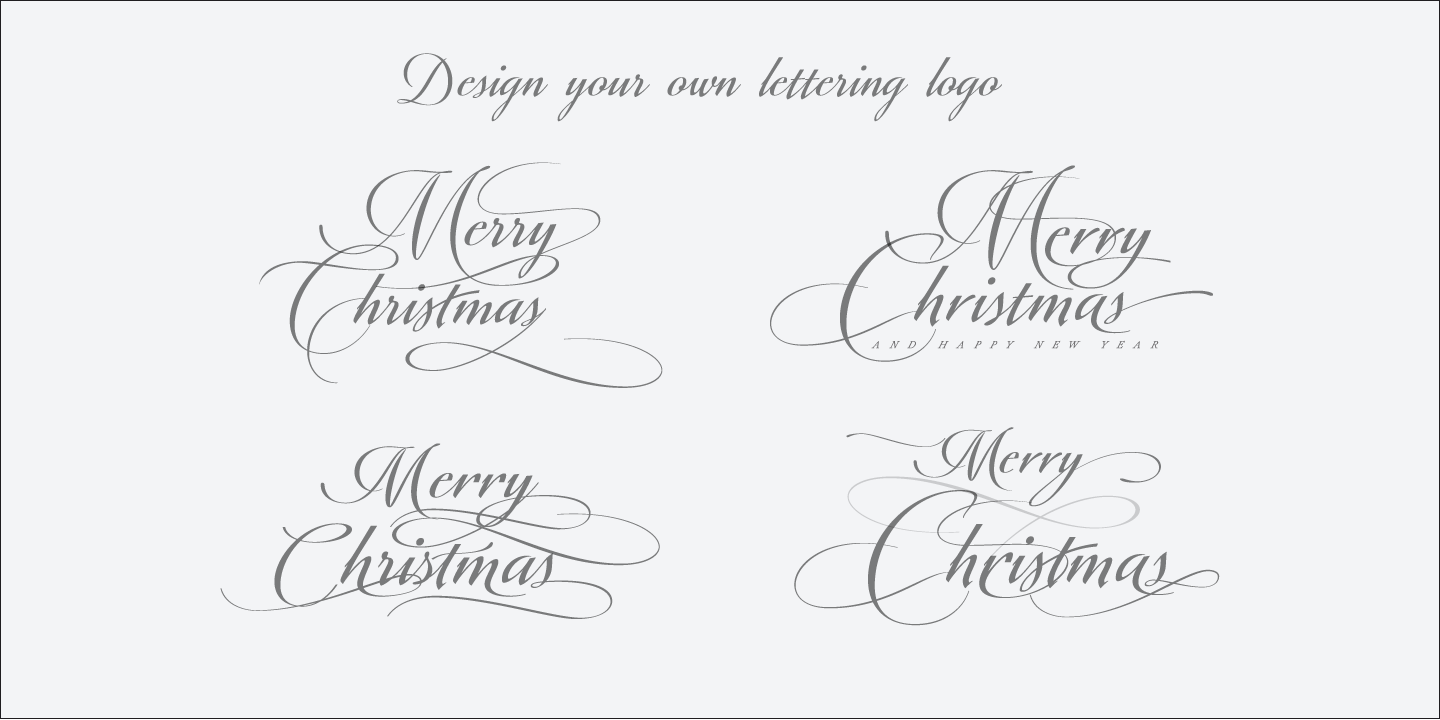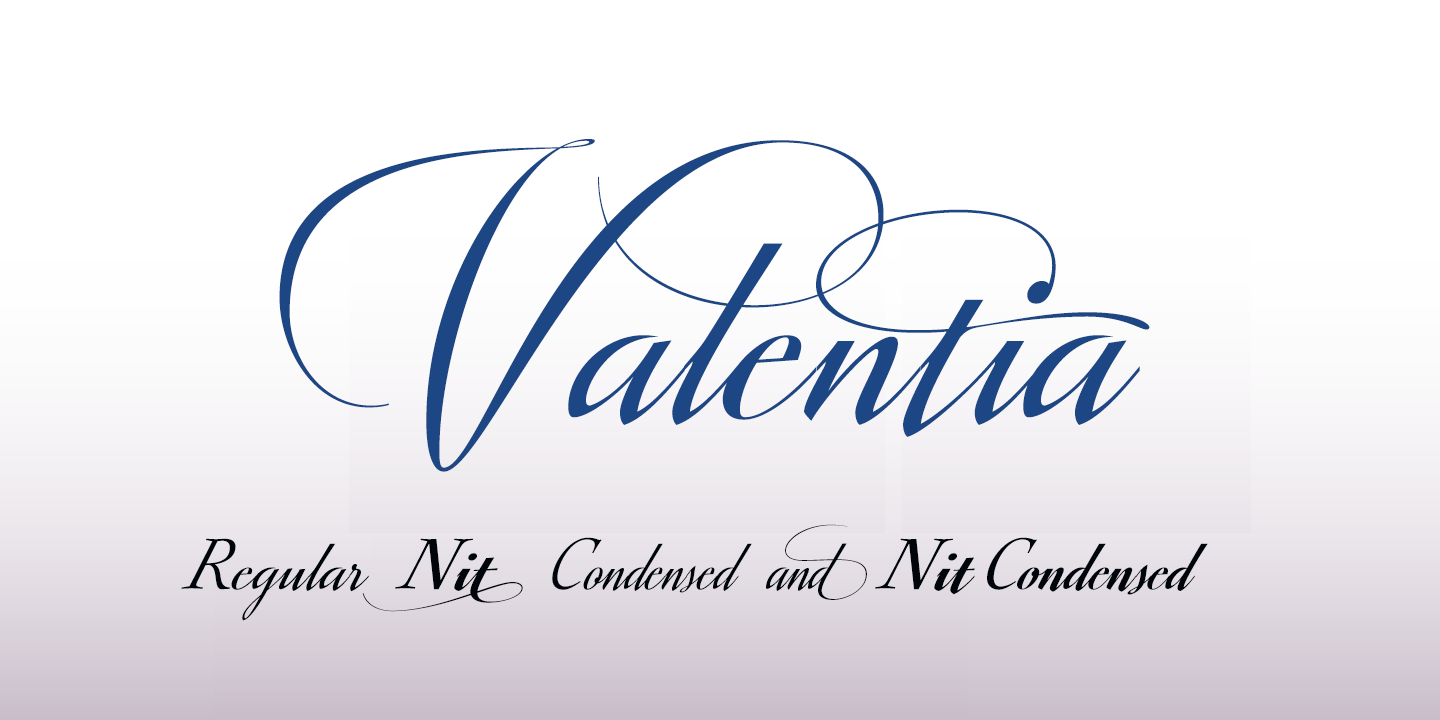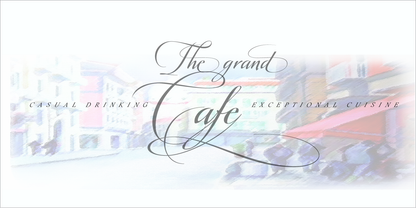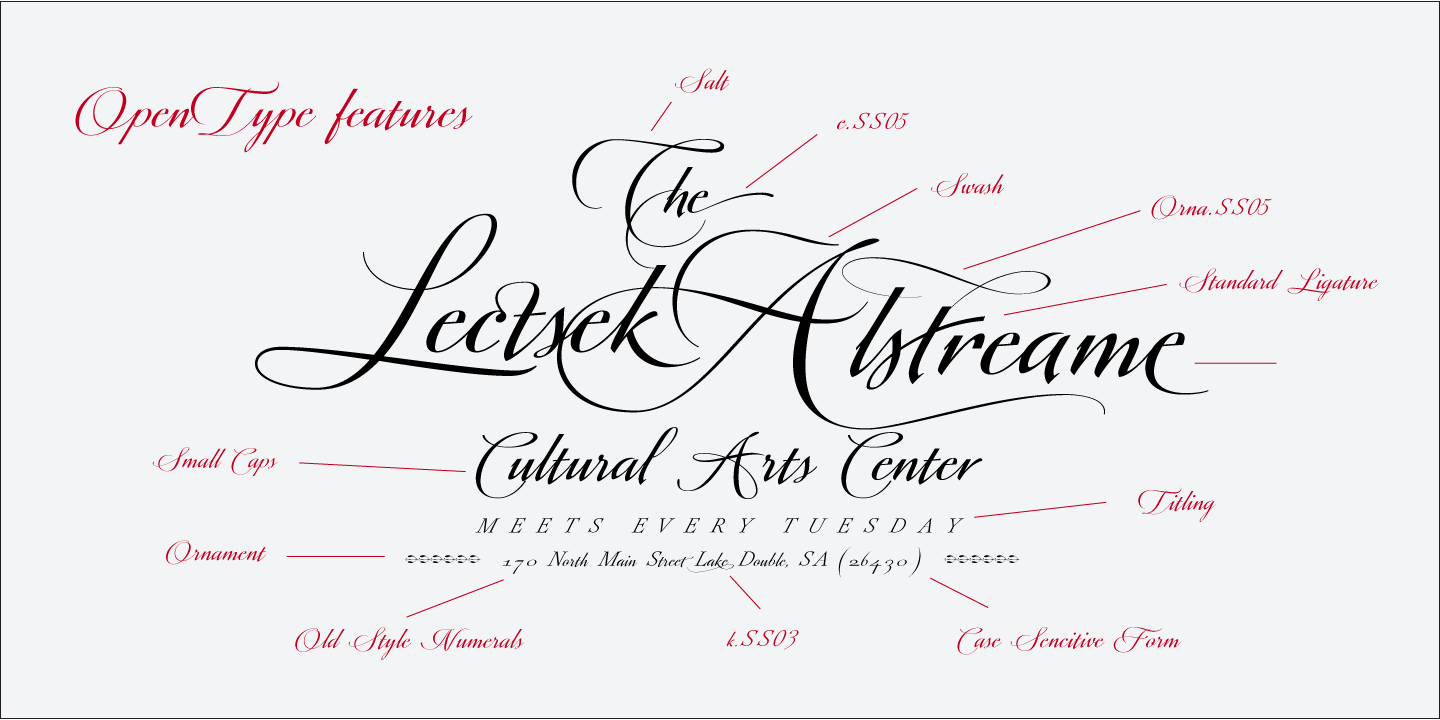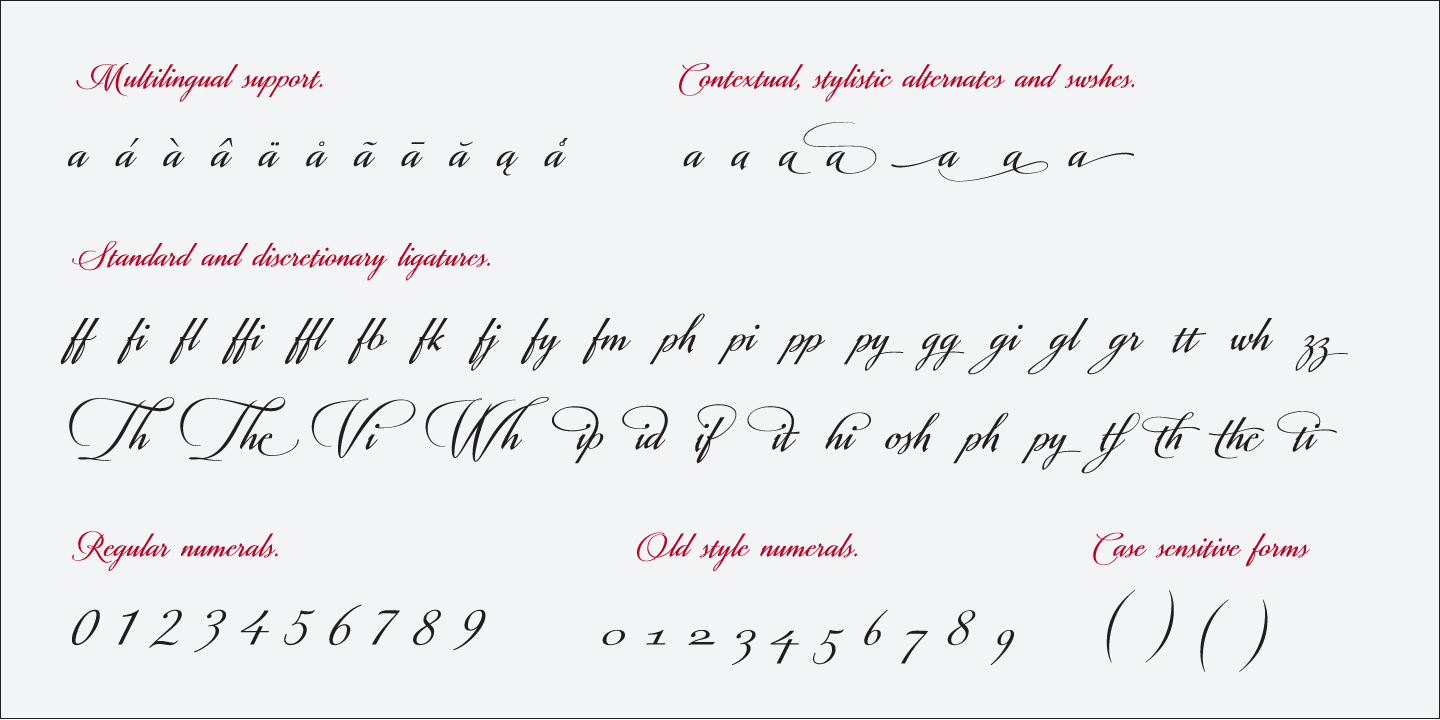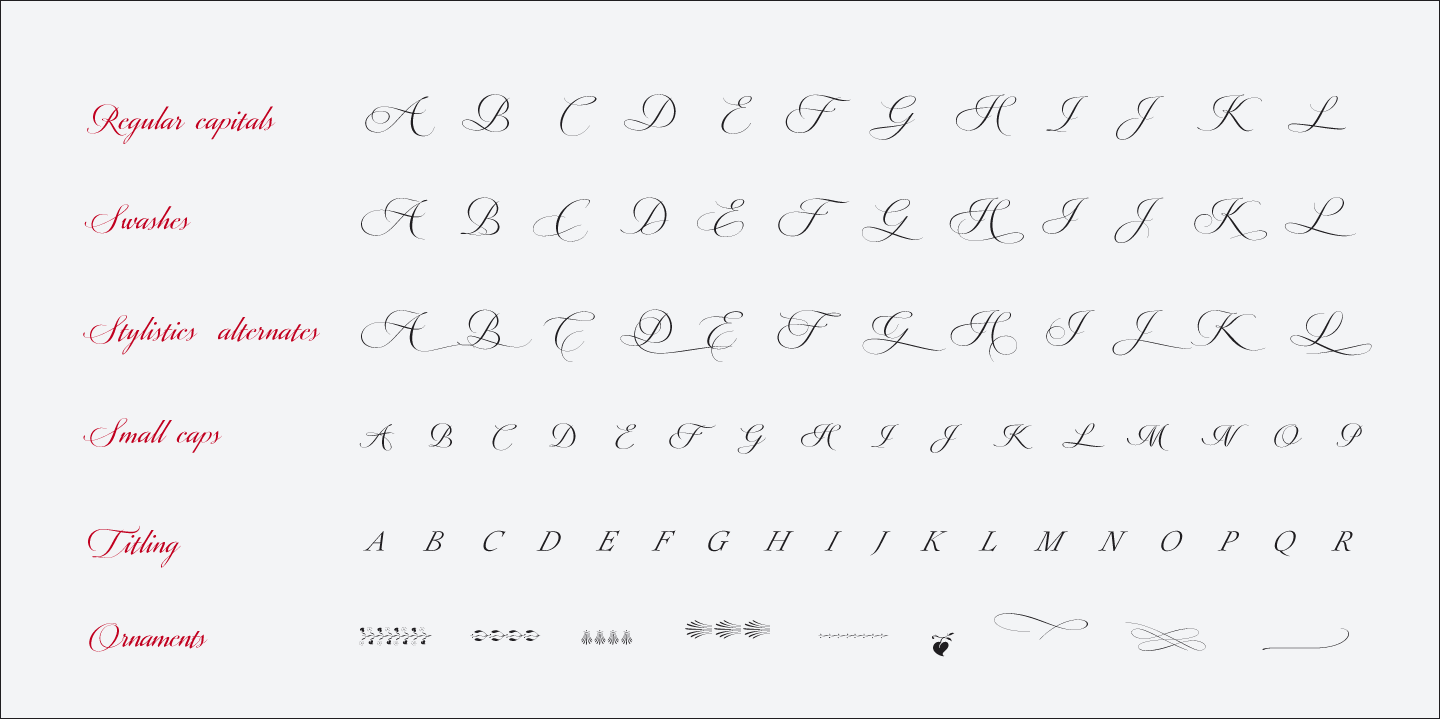
Valentia
A Casual Copperplate Script
Valentia is an elegant font, casual and readable, this new script typeface is based on Copperplate style. Unlike rigid traditional scripts, Valentia brings a relaxed atmosphere to the page without losing its classical structure.
Dynamic Ductus & Expressive Capitals
Valentia has been drawn with spontaneous strokes and slightly contrasting thicknesses. The capital letters are full of expressiveness, with very dynamic "ductus" and linked ends, which allow to decorating with subtle and finishing touch. This creates a lively rhythm that mimics quick, confident handwriting.
Small Caps & Rich OpenType Features
This font is packed with professional tools. It contains small caps and titling, a rarity in script fonts that adds immense versatility. You will find decoration variables with its own terminal forms and initial forms. You can use Standard and discretionary ligatures, swashes, stylistic and contextual alternate, old style figures, CE languages and ornaments to create truly unique typographic compositions.